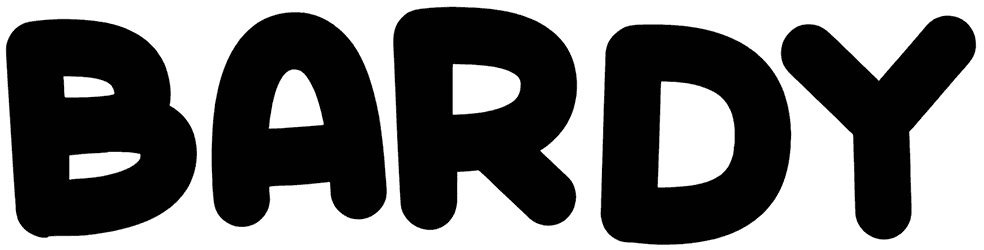
Bardy Font
Are you casting about for a different but, at the same time, minimal look for your design? Bardy, with its bulky and uncomplex face, can create a funny mood for texts. Even though this cartoon font doesn’t contain lowercase, it can be an interesting item for many designs, such as logotypes, book covers, mugs, and so on.
Bardy is a bold, fun and friendly display font. Whether you use it for cartoon related designs, children games or just any creation that requires a lovely touch, this font will be an amazing choice.